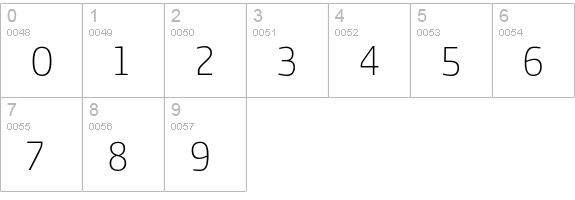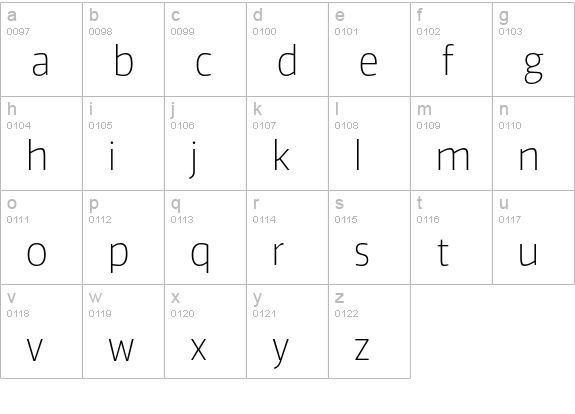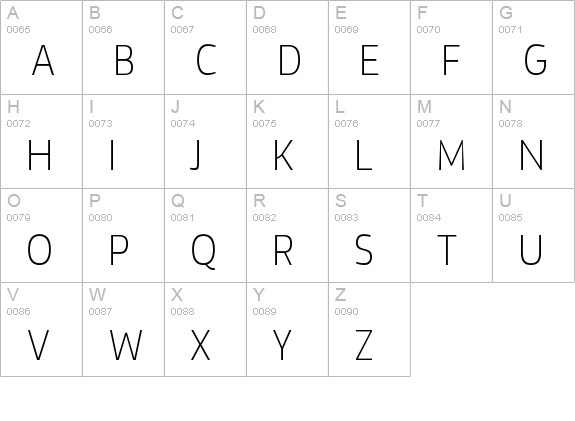
Vinkel Extra Light Font Details
Vinkel Extra Light is a refined, elegant variant in the Vinkel typeface family \xE2\x80\x94 well suited to elegant body text, refined sub-headings, and luxury branding.
Vinkel Extra Light font is a modern and elegant typeface that exudes sophistication and style. With its sleek and slender letterforms, this font is perfect for adding a touch of refinement to any design project. The thin strokes and delicate curves of Vinkel Extra Light create a sense of airiness and grace, making it ideal for projects that require a light and airy feel. What sets Vinkel Extra Light font apart is not just its design aesthetic, but also the fact that it is available for free download. That's right, you can freely access this stunning font at FontsMarket.com and use it in your projects without any cost. Whether you're working on a website, branding materials, or any other design project, Vinkel Extra Light font is sure to elevate your work with its timeless elegance and versatility. Download it today and add a touch of sophistication to your designs!